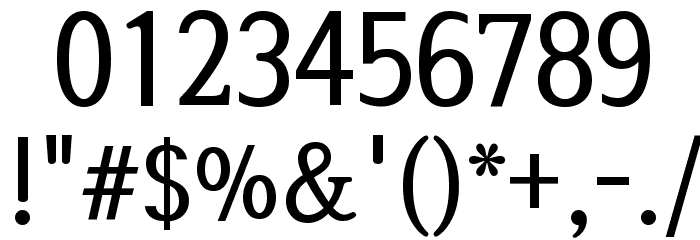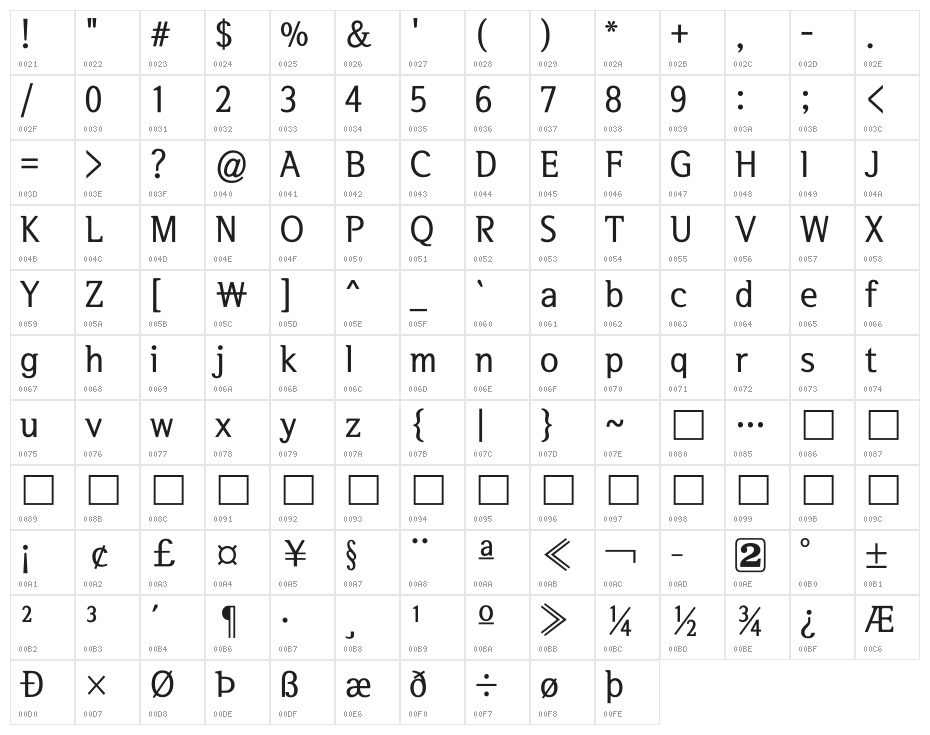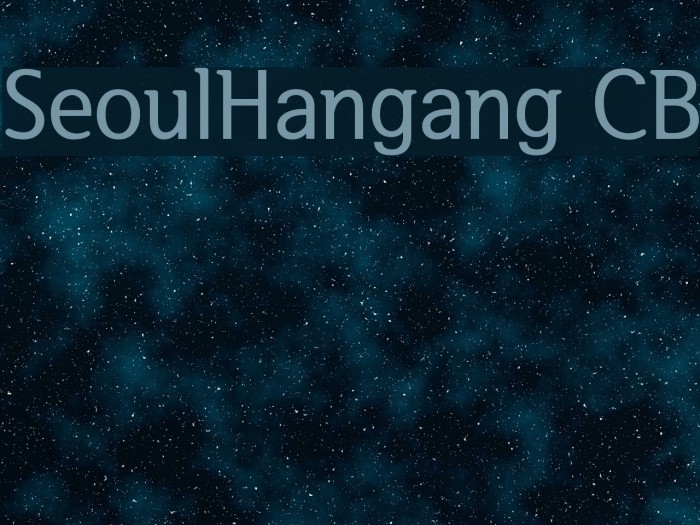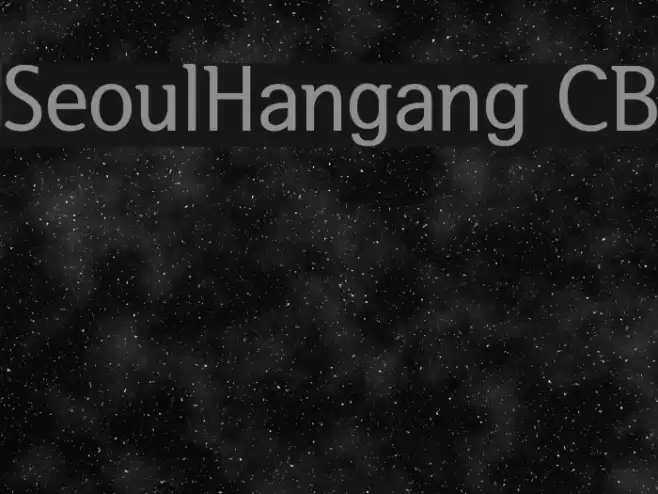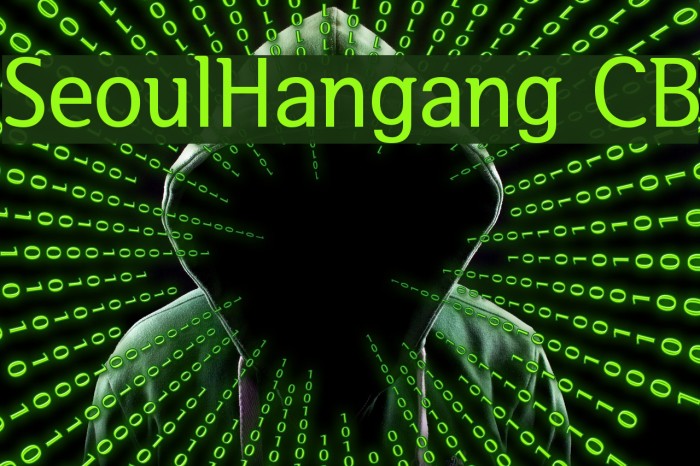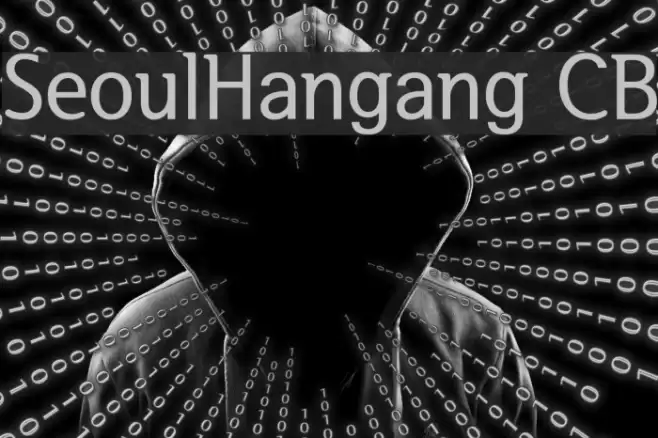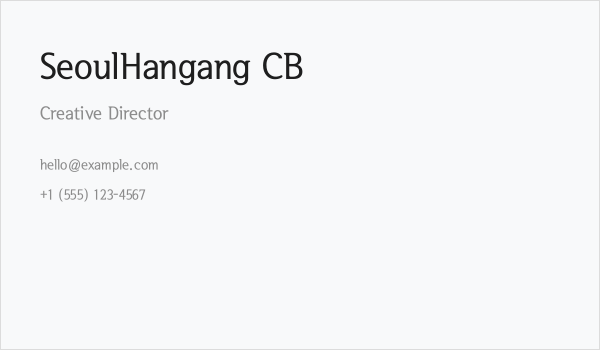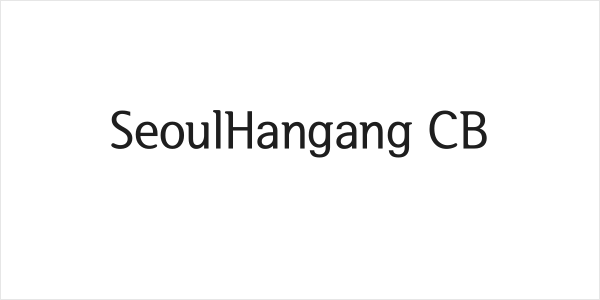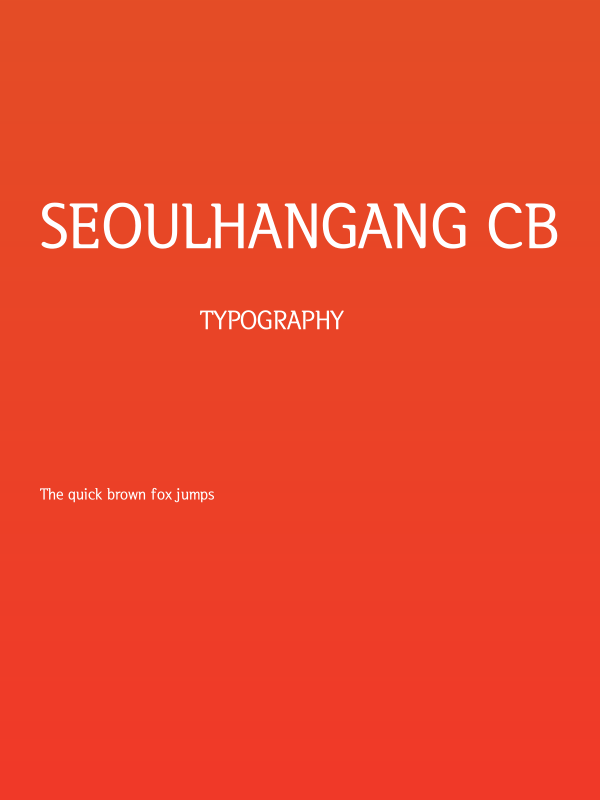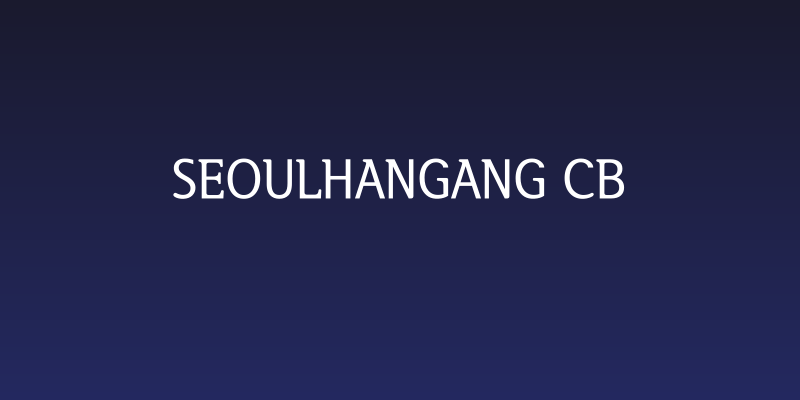
SeoulHangang CB Font
SeoulHangang CB Description
This font features a clean and modern design with a balanced structure, making it highly readable and versatile. The characters are well-proportioned with a consistent stroke width, contributing to its legibility. The uppercase letters are bold and commanding, while the lowercase letters maintain a friendly and approachable appearance. The numerals are clear and distinct, ensuring easy recognition. The special characters are neatly integrated, maintaining the overall aesthetic of the font. Its simplicity and clarity make it suitable for a wide range of applications.